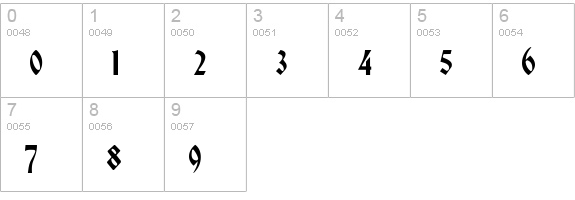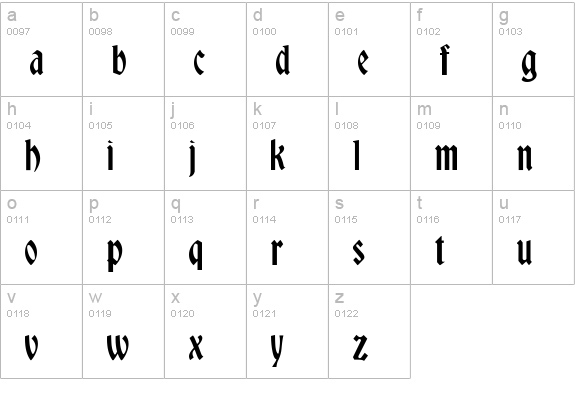
Romvel Cyr Font Details
The Romvel Cyr font is a versatile and elegant typeface that exudes sophistication and charm. Its sleek lines and graceful curves make it perfect for a wide range of design projects, from branding to editorial design. This font features a unique blend of modernity and classic elegance, making it a timeless choice for any creative endeavor. What sets Romvel Cyr apart is its seamless integration of Cyrillic characters, adding an international flair to your designs. Whether you're working on a global campaign or simply want to add a touch of cultural diversity to your project, this font has you covered. Best of all, Romvel Cyr is completely free to download at FontsMarket.com. So you can elevate your designs without breaking the bank. Don't miss out on this opportunity to add a touch of sophistication to your work with the Romvel Cyr font.